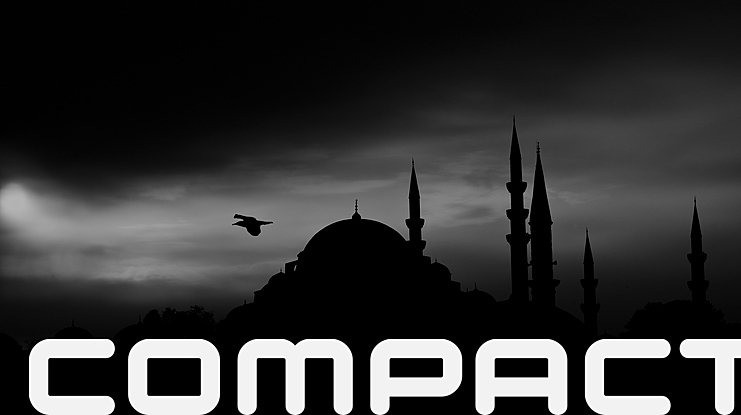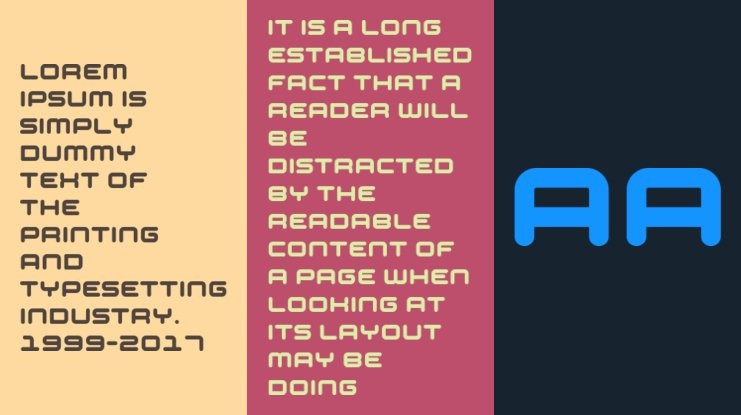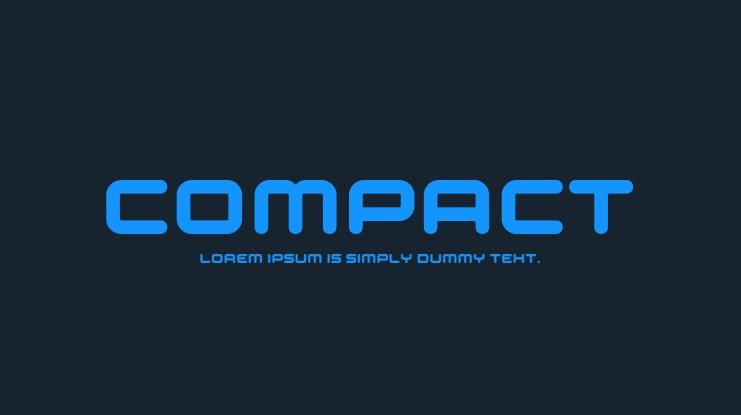
Compact Font
Compact Font, This bundle features strong, confident and powerful typefaces designed to work great with sports logos, club branding, apparel applications, labels and more.
A font based on the Compaq wordmark.